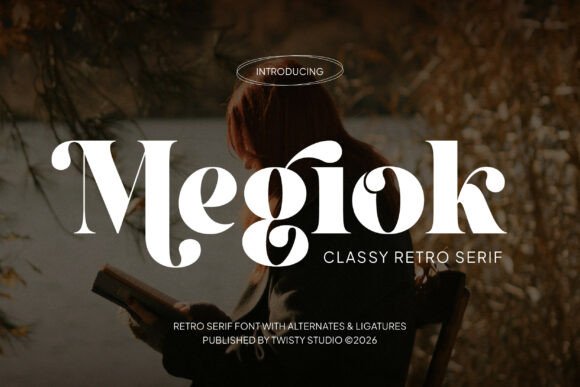
How Megiok Adds Vintage Elegance to Handmade Labels, Invitations, and Printables
I was putting together a set of wedding invitation mockups when I stumbled upon Megiok—a classy retro serif font that captures the essence of elegance with a beautiful and stylish vintage touch. Carefully crafted with refined serif details and smooth curves, this typeface brings a timeless charm that instantly elevated my designs. As a printable creator and small shop owner, I’m always looking for fonts that stand out while still being versatile enough for different products. Megiok quickly became a go-to in my design toolkit.
Megiok for Candle Labels and Boutique Packaging
When I started designing candle labels for my seasonal soy candle line, I wanted something that felt luxurious but not over the top. Megiok’s vintage serif style gave my labels that elevated boutique feel. Whether I was printing on kraft paper or glossy sticker sheets, the font’s refined serifs and soft curves held up beautifully. I used it for product names and scent descriptions, pairing it with a clean sans serif for ingredient lists. The contrast helped guide the eye while maintaining a cohesive brand identity.
Wedding Invitations and Elegant Branding with Megiok
One of my favorite projects using Megiok was a wedding invitation suite. The serif font’s elegant structure made it perfect for formal names and event details. I used it in gold foil on ivory cardstock, which gave the invitations a soft, romantic glow. I also incorporated Megiok into the couple’s custom logo and welcome signs, creating a consistent visual thread across all wedding stationery. For envelope addresses and RSVP cards, I paired it with a simple script font, allowing the serif to shine as the main typographic focus.
Digital Printables: Planner Pages and Wall Art
Megiok works just as beautifully in digital downloads as it does in physical prints. When designing a vintage-style printable planner set, I used Megiok for monthly headers and special event titles. The font’s smooth curves and elegant serifs gave the pages a soft, curated aesthetic that many of my customers loved. For wall art prints, especially quote-based designs, Megiok added a touch of sophistication that made each piece feel like a classic keepsake.
Seasonal Tags and Holiday Stickers
During the holiday season, I created a set of gift tags and Christmas stickers using Megiok. The font’s vintage flair was perfect for phrases like “To: Grandma, From: Santa” and “Handmade with Love.” I found that the font scaled well on small sticker sheets—especially when used for names or short phrases. To ensure readability on my Cricut machine, I adjusted the spacing slightly and avoided using it for long descriptions. The result? Festive, elegant tags that stood out in my shop and sold well as part of a holiday printable bundle.
Font Pairing Tips: Megiok with Sans Serif and Script Styles
One of the best things about Megiok is how well it pairs with other fonts. For product labels and greeting cards, I often combine it with a minimalist sans serif like Montserrat or Lato to keep the layout modern yet elegant. For more decorative pieces like wedding save-the-dates or vintage wall art, I’ll pair it with a flowing script font to add movement and contrast. This versatility makes Megiok a valuable asset in any creative font collection.
Readability and Practical Use in Craft Design
While Megiok is a display serif font best suited for titles and short phrases, it’s important to use it thoughtfully in product design. I’ve found it works best when used at 12pt or larger, especially for printed cards and packaging. On smaller stickers or digital previews, I make sure to avoid overcrowding and test the font in different formats before finalizing the design. For laser cutting or vinyl projects, I always double-check that the serifs won’t get lost in the material or cut too finely for the machine to handle.
Before using any font in commercial products, I always check the included styles and licensing terms. Megiok typically comes with multiple weights and sometimes includes ligatures or alternate characters that can add a unique touch to your designs. Most importantly, I make sure the font is licensed for commercial use—especially when creating printables, SVG templates, or branded packaging that will be sold through my shop. Knowing that Megiok supports multilingual characters also helps when I have international customers or offer translations in digital products.
Using Megiok Across Different Creative Platforms
Whether I’m designing in Canva, Illustrator, or Silhouette Studio, Megiok integrates smoothly into my workflow. Its clean outlines and vintage serif structure make it ideal for both print and digital design. I’ve used it in social media graphics for shop promotions, on product mockups for listing images, and even in logo design for vintage-inspired brands. The key is to let the font’s personality guide the design while keeping the overall layout balanced and readable.